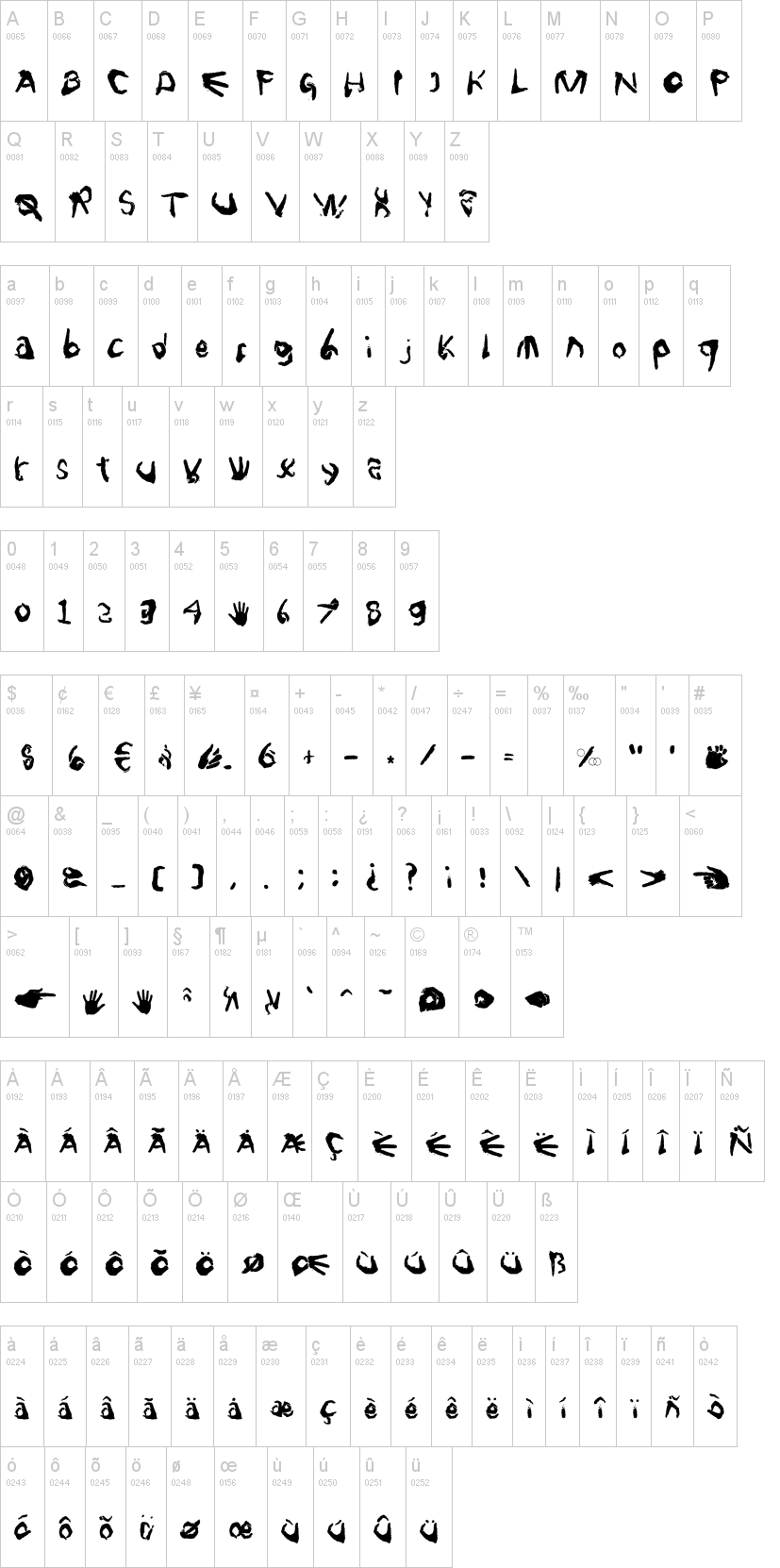
Note of the authorFingerType is a handwritten font in the most basic sense of the word handwritten. Letters are formed by my own 39 year old hands & fingers copied on a Ricoh MP C4500 photocopier.